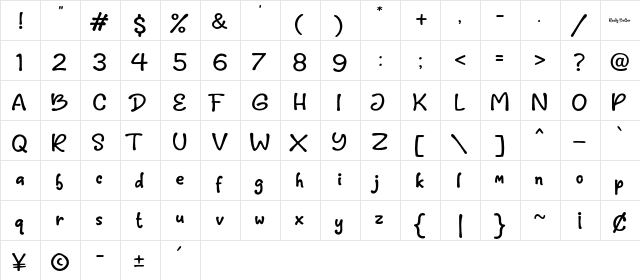
Really Better Regular
| Designer | Subectype. 2018 |
Design Context for Really Better Typeface
Really Better takes a measured approach to typography — its balanced proportions and neutral character make it a reliable workhorse for both digital and print work.